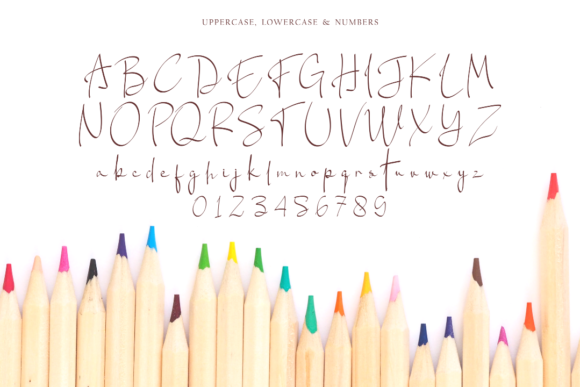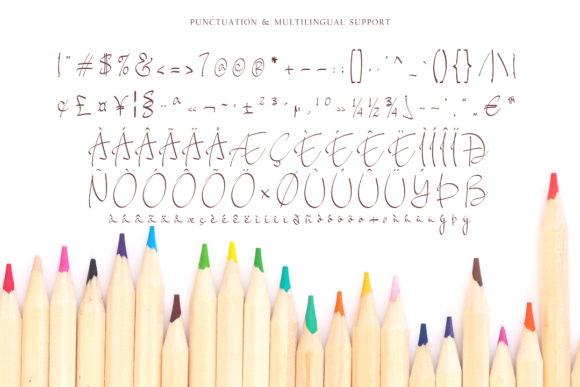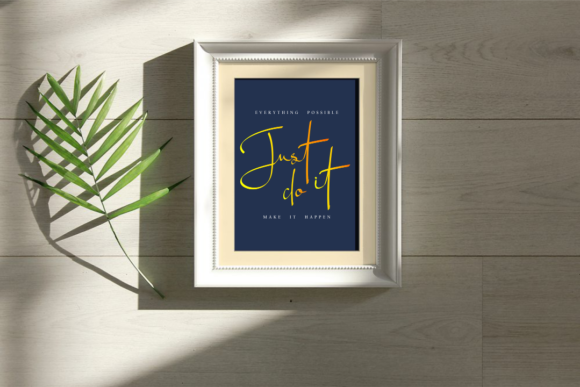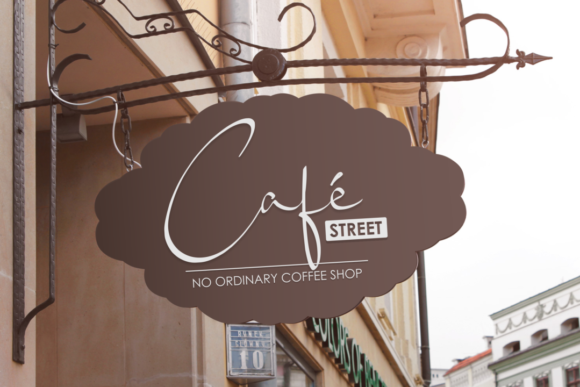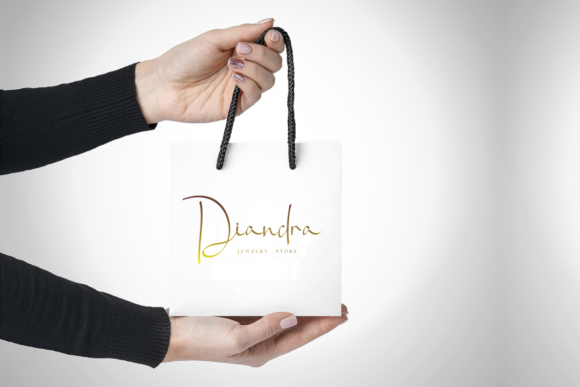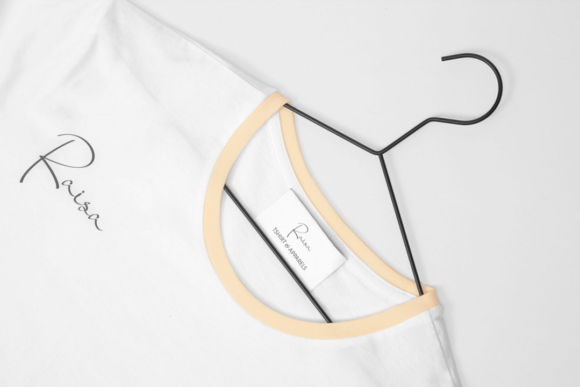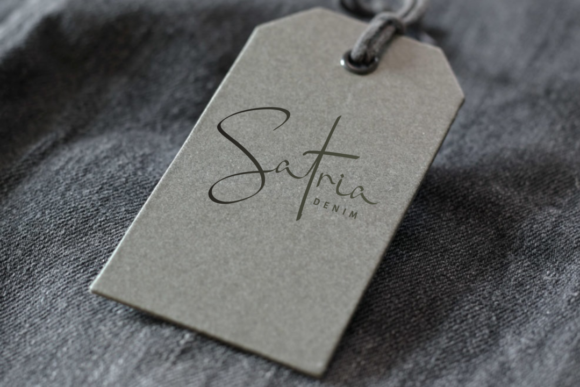
Paper Sign Font
About Paper Sign Font
Paper Sign celebrates classic calligraphy with a unique spin. This delightful script will make any design stand out.